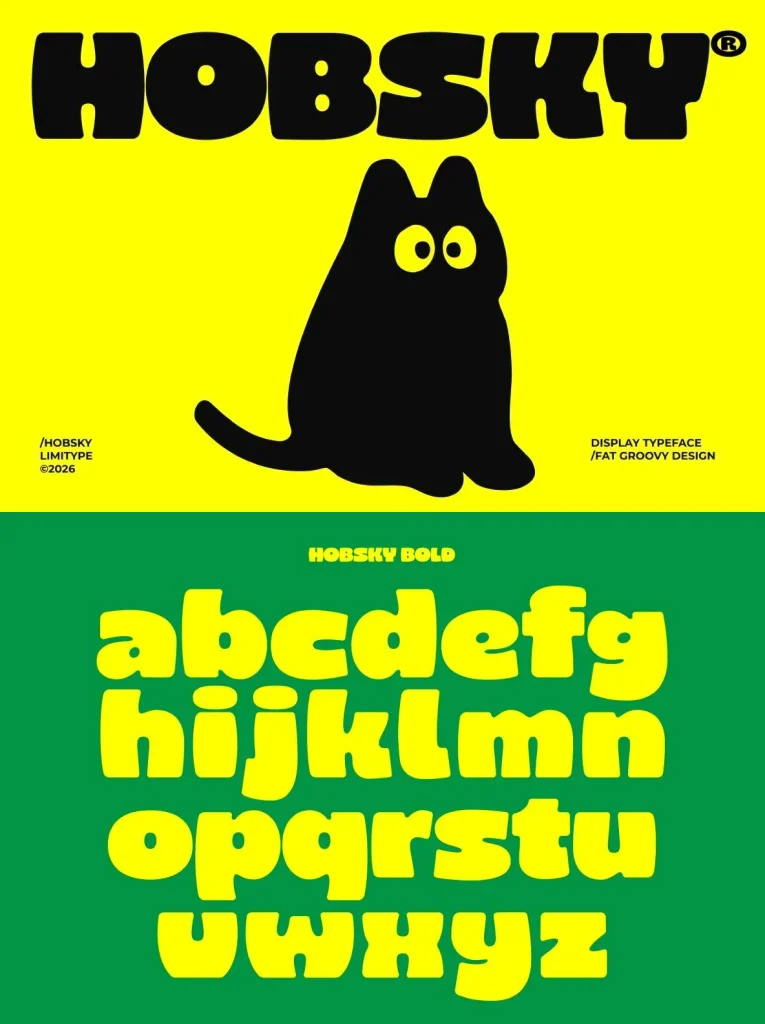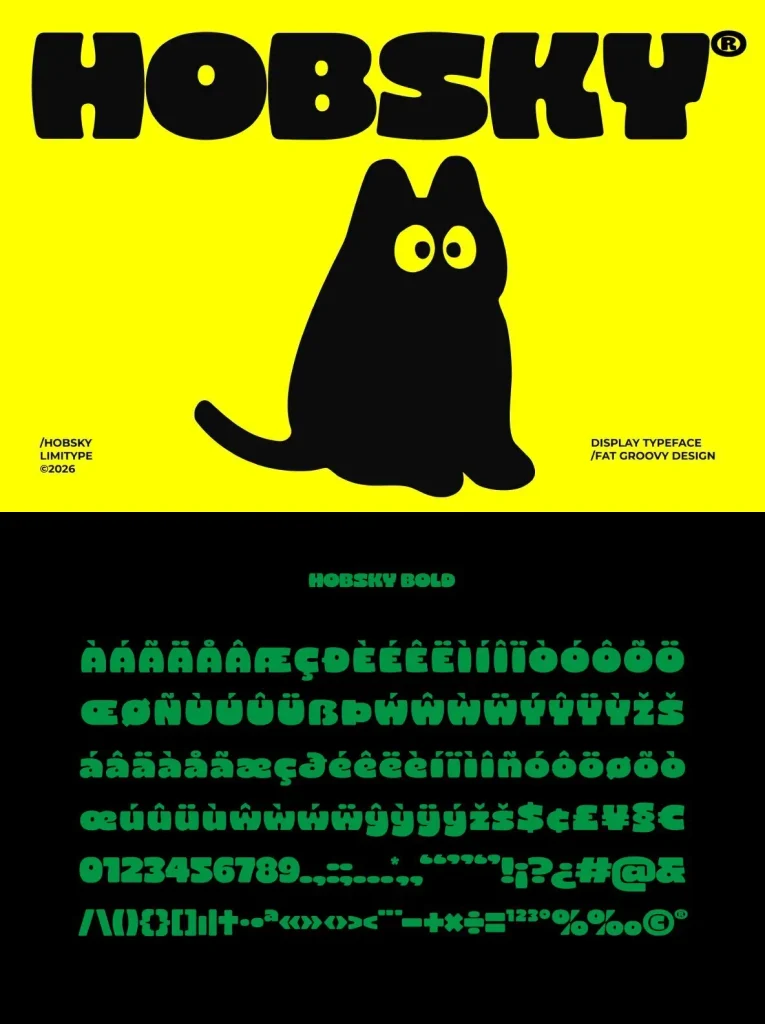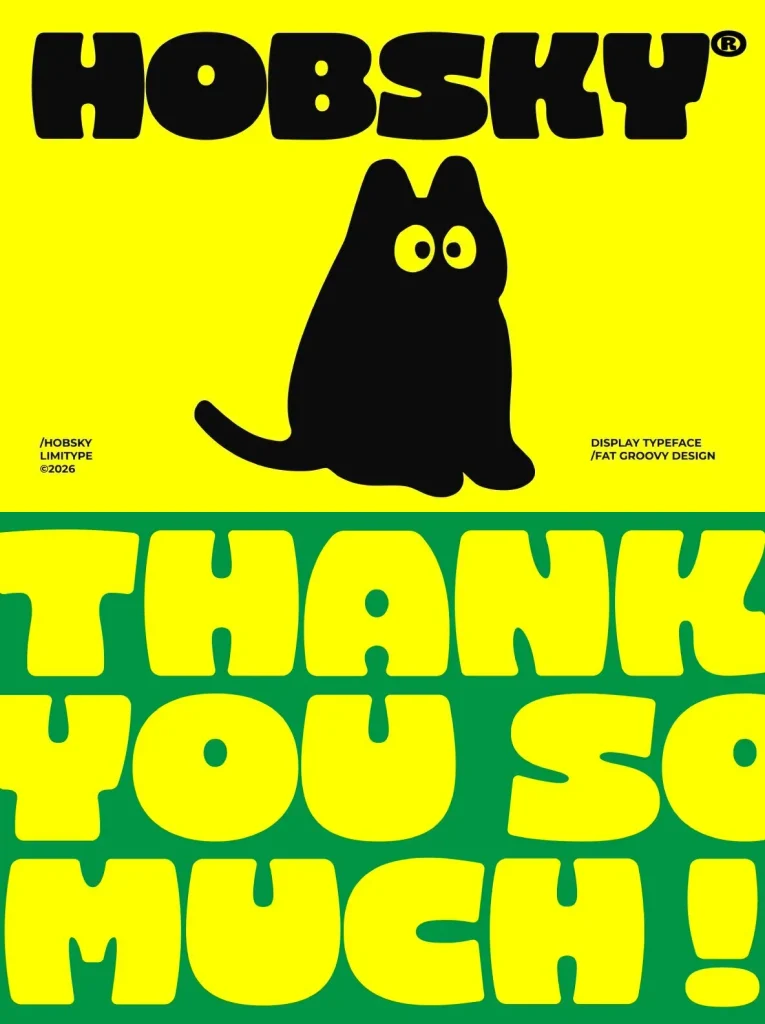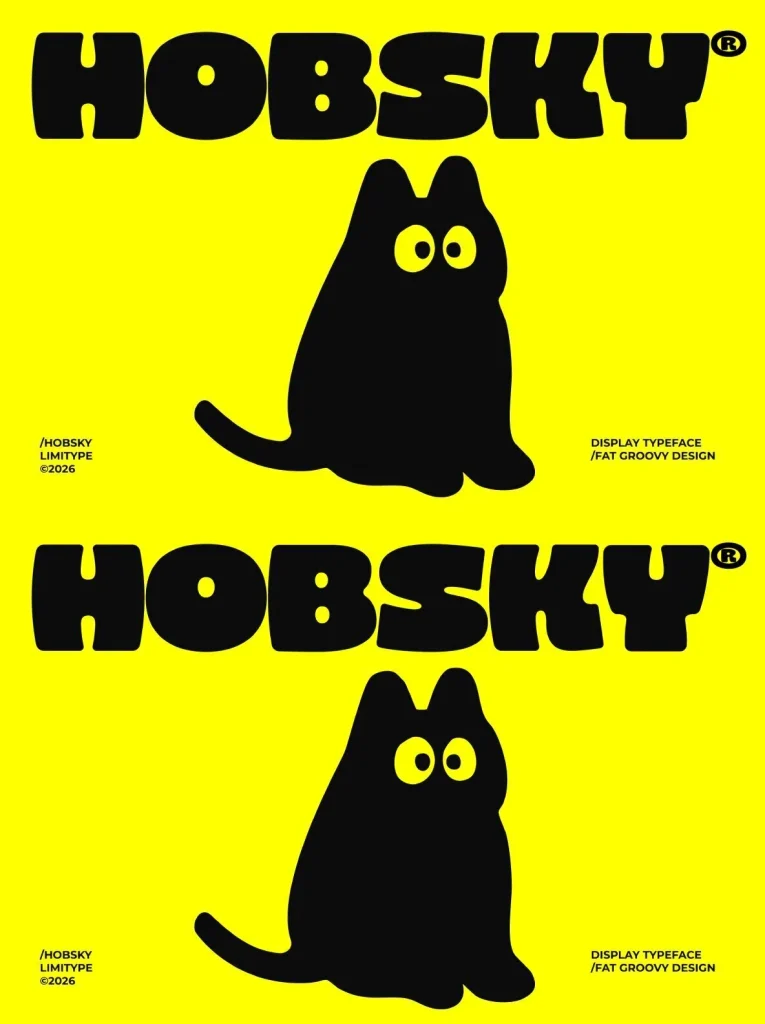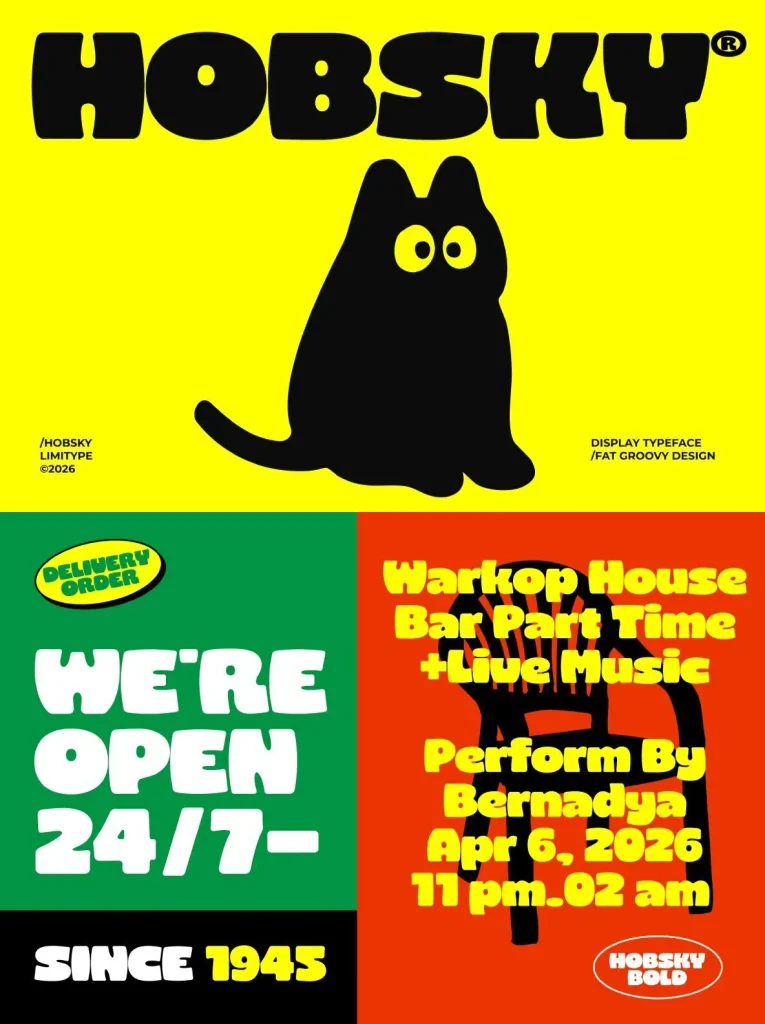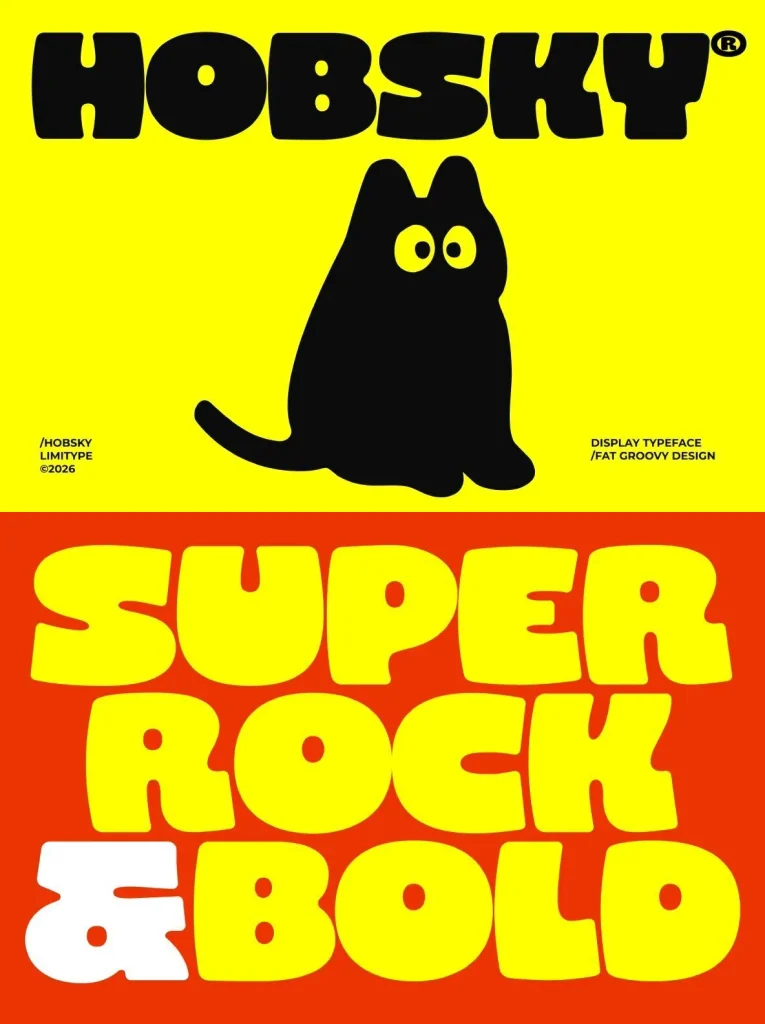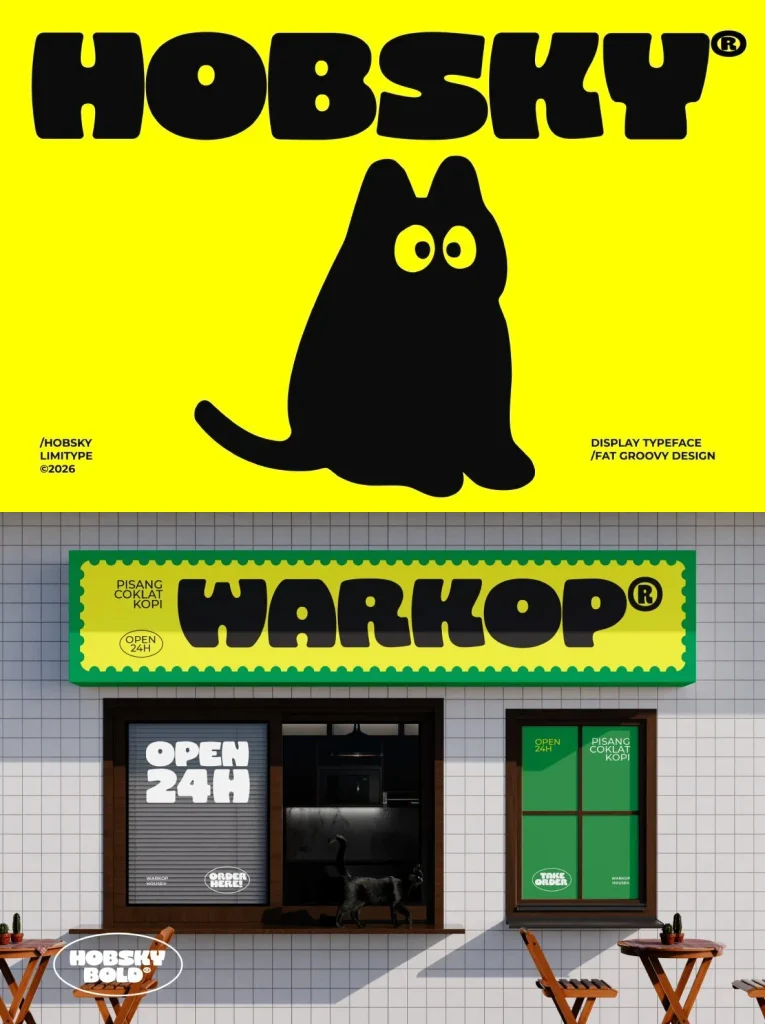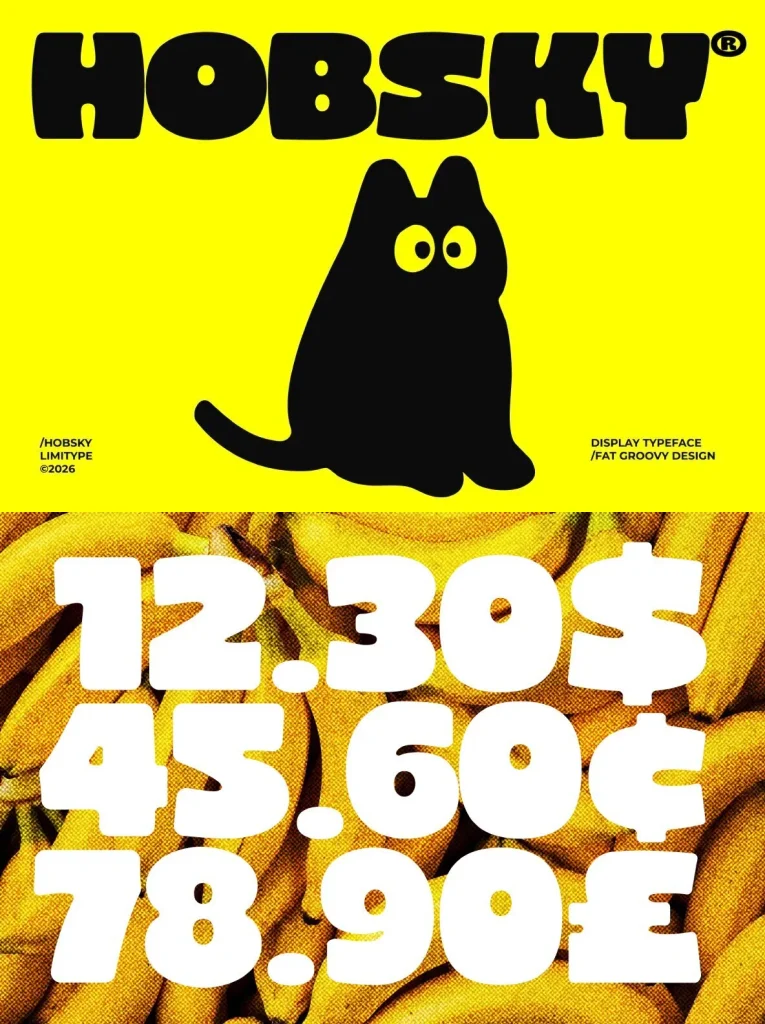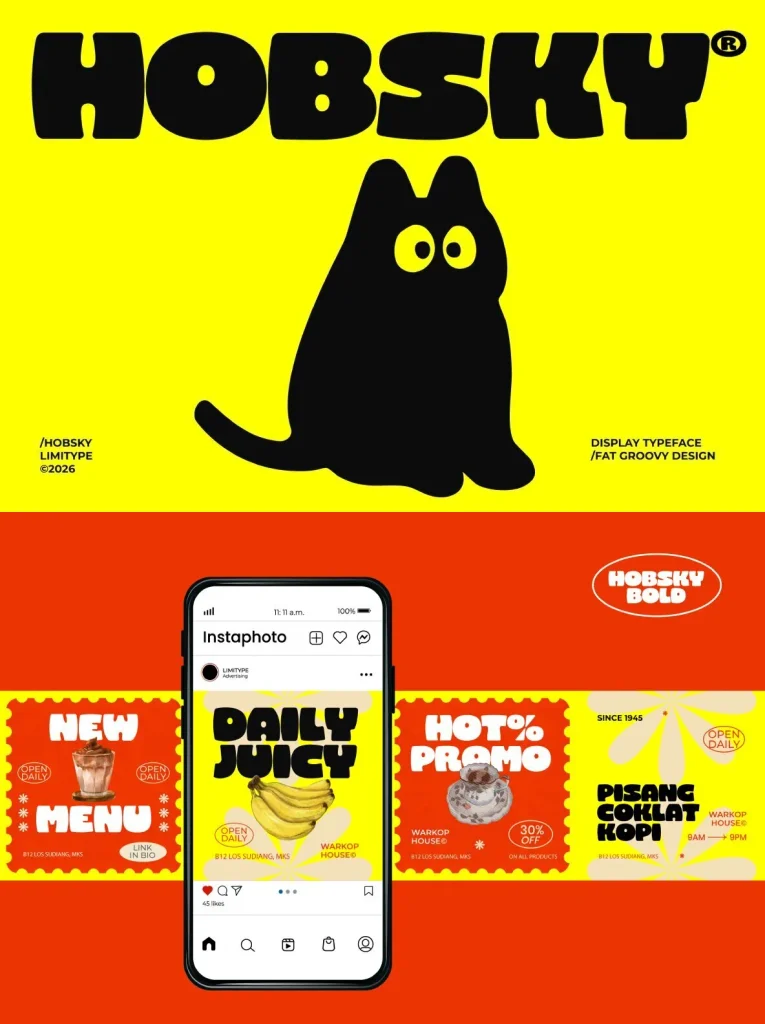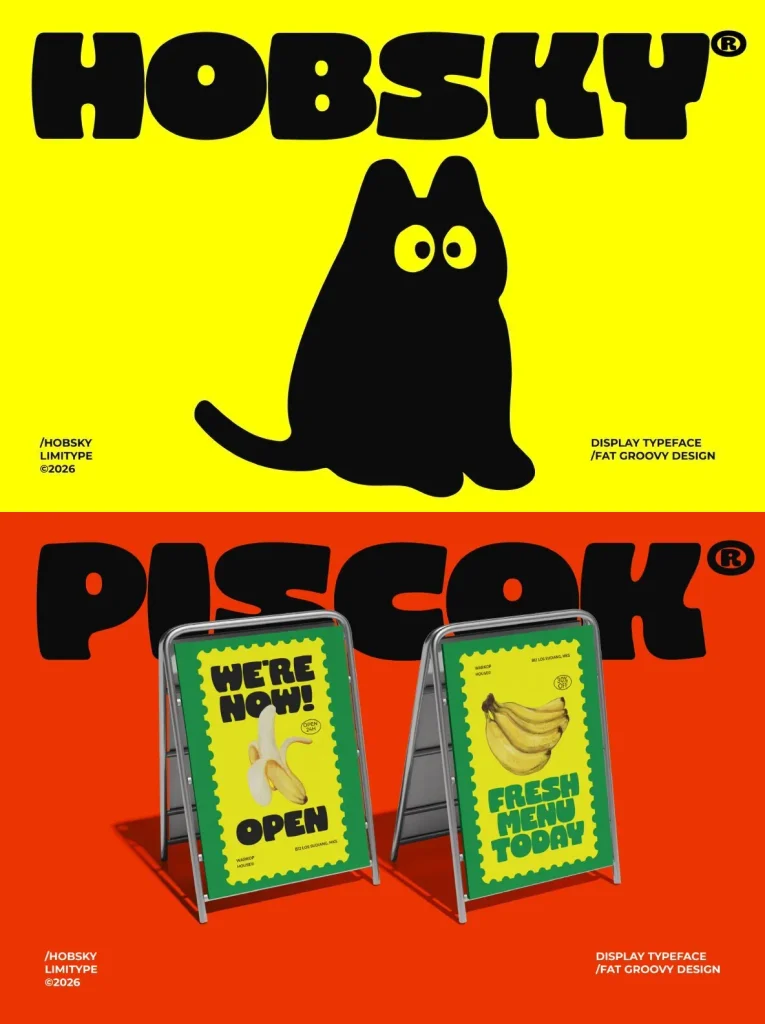
Hobsky — Groove With Bold Presence
Hobsky is a bold display font with groovy, playful energy in every letterform. Its chunky forms and lively curves give the typeface a fun yet striking visual presence, making it well suited to branding, posters, packaging, and creative headlines. With its retro-inspired vibe and modern twist, Hobsky brings personality to designs that need to stand out quickly and confidently.
Use Hobsky when the message calls for attention, rhythm, and a strong graphic voice. The font’s expressive shapes make it a natural choice for projects that need warmth, movement, and a memorable display style without losing clarity. For designers working on bold visual identities or standout promotional layouts, Hobsky offers a playful typographic tone with immediate impact.